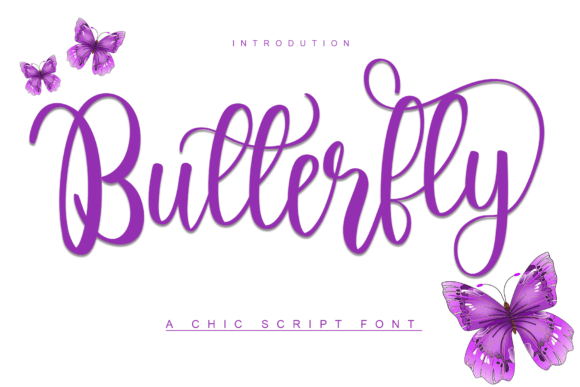
Embracing the Art of Elegant Typography
Have you ever found yourself pouring over a blank page, pen in hand, searching for the perfect words to bring your creative vision to life? For designers, this moment of inspiration is a thrill unlike any other – and the right font can make all the difference. That’s where the Butterfly Font comes in, a stylish handwritten font that’s equal parts timeless classic and contemporary cool.
Balanced, varied, and expertly crafted, the Butterfly Font is designed to elevate your projects to new heights. Whether you’re crafting a wedding invitation, a brand identity, or a social media campaign, this font’s impeccable form is sure to make a lasting impression. And for designers, its versatility and sophistication make it an invaluable tool in their creative arsenal.
Butterfly Font Key Features
- Font Style: A whimsical and elegant script font, ideal for creative and artistic designs.
- Character Set: Includes a wide range of characters, including uppercase and lowercase letters, numbers, and punctuation marks.
- Unique Characteristics: Features flowing connections between letters, creating a sense of movement and fluidity, perfect for headings and titles.
Designer Review: Butterfly Font
I recently had the chance to work with the Butterfly Font, and I must say it’s a delightful addition to any design project. ✨ The flowing curves and whimsical feel make it perfect for creating a sense of wonder and magic. I particularly love how it can be used for titles and headings, adding a touch of elegance and sophistication to any design.
One of the things that really stood out to me was the font’s versatility. It can be used for a wide range of projects, from children’s books to luxury brands, and still looks great. The font is also highly customizable, allowing designers to adjust the weight, size, and spacing to fit their specific needs.
However, there are a few limitations to keep in mind. ⚠️ For one, the font can be quite busy at larger sizes, which can make it difficult to read. Additionally, the font’s whimsical feel can sometimes feel overly playful, which may not be suitable for all projects.
Overall, I would highly recommend the Butterfly Font for designers looking to add a touch of whimsy and elegance to their projects. While it may have a few limitations, the font’s versatility and customization options make it a valuable addition to any design library.
- Pros:
- Delightful, flowing curves
- Perfect for titles and headings
- Cons:
- Can be busy at larger sizes
- May feel overly playful
Tips for Getting the Most Out of the Butterfly Font
Use the Butterfly font for whimsical and playful designs, such as children’s books, greeting cards, and social media graphics. Experiment with different font sizes and colors to create a unique look. You can also pair the font with other playful fonts to create a fun and lively design.
The Butterfly font is perfect for:
– Children’s book illustrations
– Greeting cards and invitations
– Social media graphics and ads
– Whimsical website designs
Alternatives to Butterfly Font
Great Vibes is a beautiful, elegant script font perfect for adding a touch of sophistication to your designs. It’s ideal for use in titles, headings, and quotes where you want to convey a sense of luxury and refinement. Great Vibes is similar to Butterfly Font in its flowing, handwritten style, but it has a more refined and polished feel.
Lato Script
Lato Script is a modern, stylish script font that’s great for creating eye-catching headings and titles. It’s perfect for use in digital design, such as websites and mobile apps, where a clean and modern look is essential. Lato Script is similar to Butterfly Font in its dynamic, energetic feel, but it has a more geometric and futuristic look.